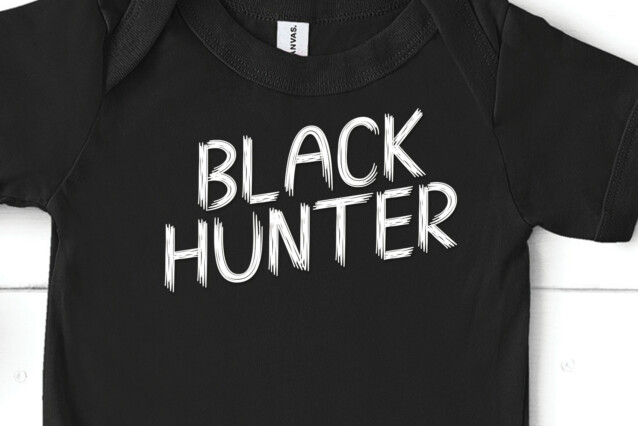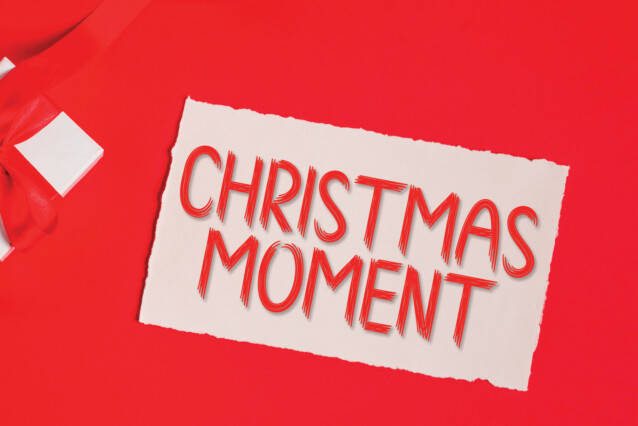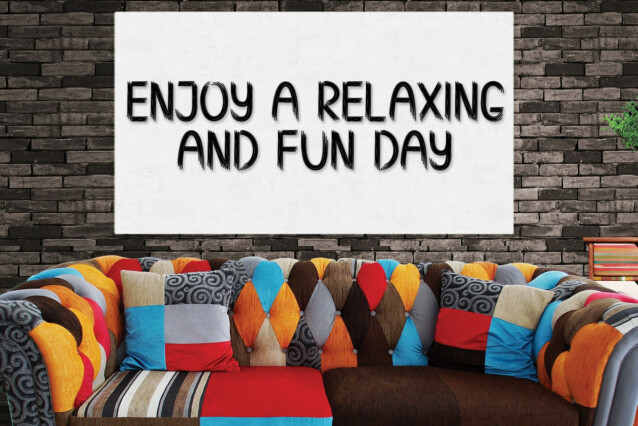
Black Fire Display Font
Black Fire Display Font is a handwritten brush script font that looks and feels like it was written on a marker board. Perfect for greeting cards, invitations, and motivational quotes, this font should help you express all of your best messages!